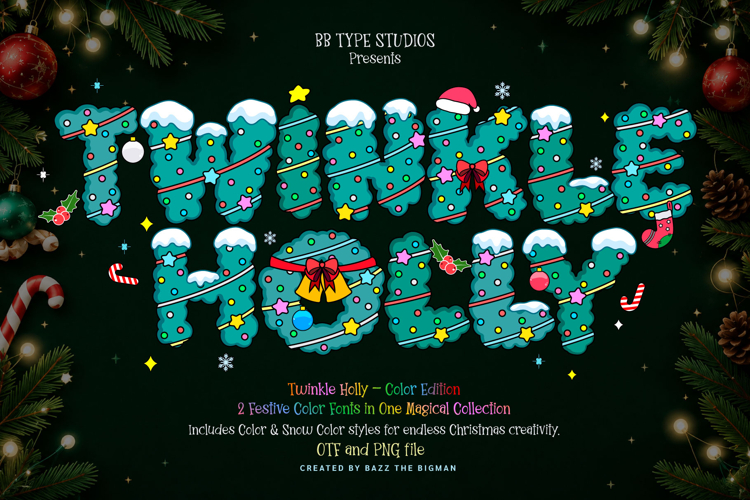
Twinkle Holly Color
Indulge in the enchanting charm of Christmas with the Twinkle Holly Color font. This whimsical and lighthearted decorative color font family takes inspiration from the twinkling holiday trinkets, radiant lights, and heartwarming winter festivities. Bundled in this Color Edition, discover two festively-tinted font styles crafted to illuminate your holiday tasks.
🎄 Twinkle Holly – Color Font bursts forth a radiant and color-drenched Christmas ornament font, adorned with lively decorations, ribbons, stars, and holiday-themed embellishments.
❄️ Twinkle Holly – Snow Color Font mimics the joyful design of the color font, crowned with delicate frosty touches, making it the ideal choice for conjuring up the warm, cozy artistry of winter and Christmas themes.